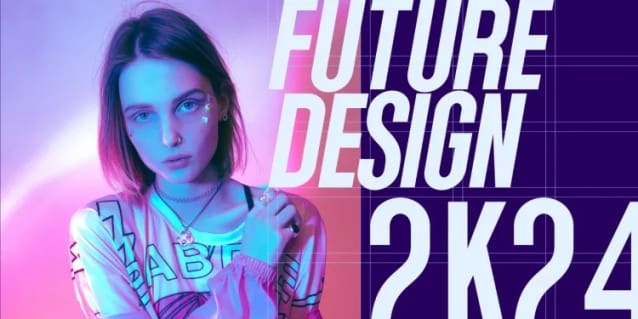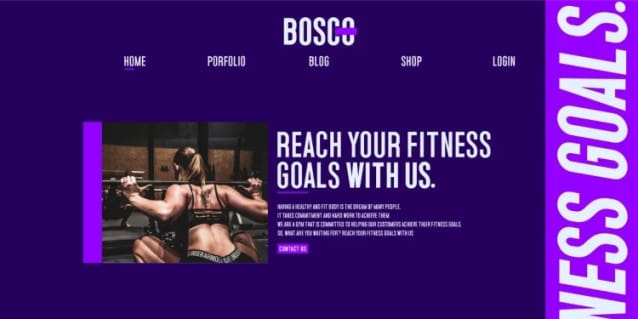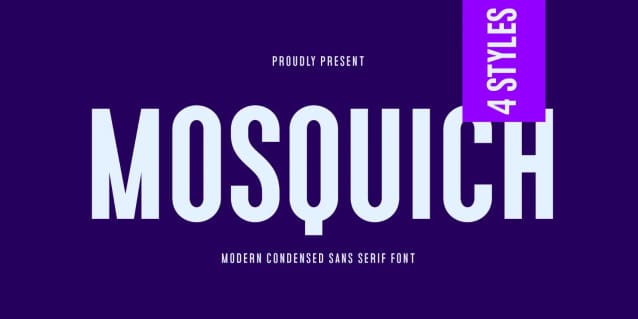
Mosquich Font
Mosquich Font, is a multipurpose condensed font that’s clean, neat, and attractive. Inspired by hiking trips and forest views, Mosquich Font represents a sense of clean highland adventure. These fonts are themed retro, adventure, urban, hipster, and vintage but still modern. These fonts are great for creating desired projects like logos, posters, headlines, albums, quotes, apparel, and more. It is perfect for anyone who needs a clean condensed typeface!